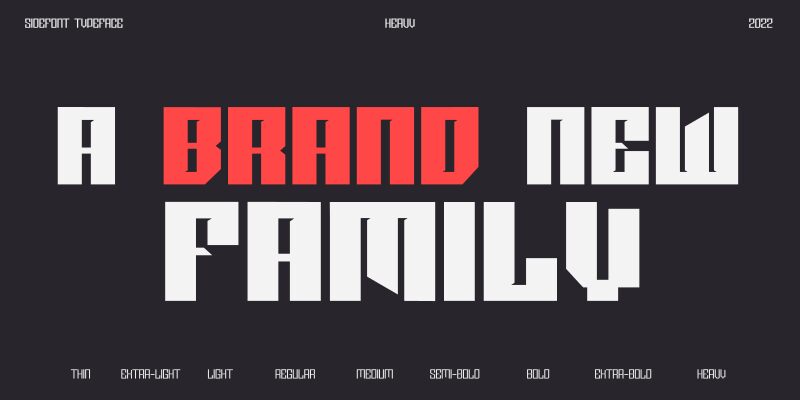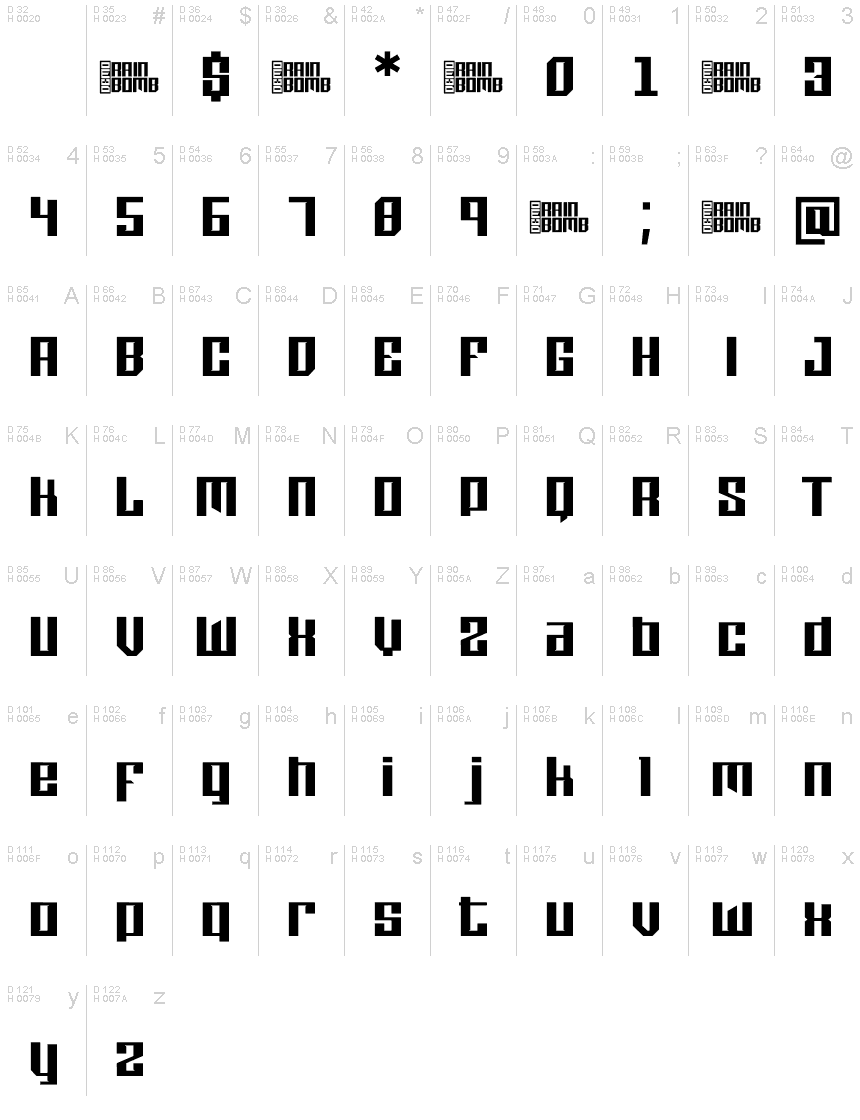
Sidefont Bold Demo
Sidefont Bold is a captivating display font from Rainbomb Studio. With its bold weight and futuristic style, Sidefont Bold adds a touch of modernity to any design project. Its sleek curves and sharp edges make it perfect for creating eye-catching logos, headlines, and posters. Whether you're working on a tech startup branding or designing sci-fi movie titles, Sidefont Bold will effortlessly elevate your visuals. Its distinct personality and versatility set it apart, making it an ideal choice for innovative projects that demand attention. Stand out from the crowd with Sidefont Bold!